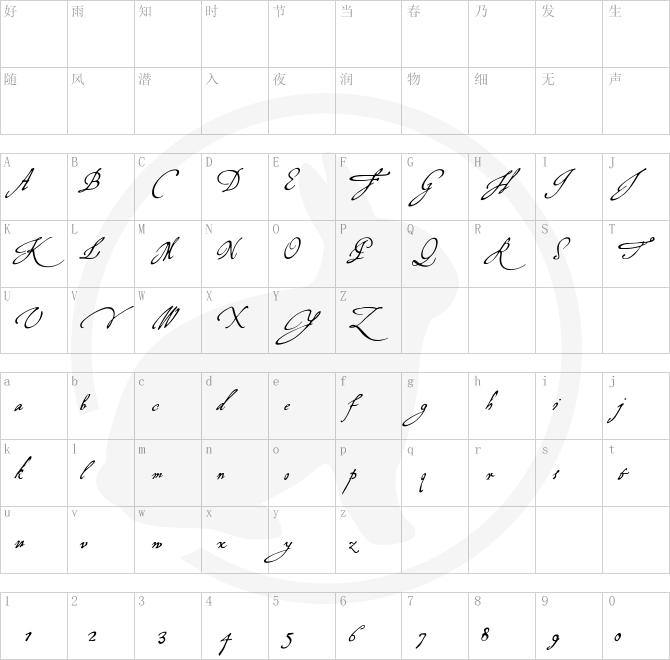
- Font Name:P22Virginian
P22Virginian.ttf is a very beautiful artistic font, P22Virginian.ttf is widely used in the design and printing of various books and pictures,P22Virginian.ttf has a strong visual impact,P22Virginian.ttf is a commonly used font in newspapers, magazines and books, and is used in posters, e-commerce Poster design, store design, logo design, font design and other fields.P22Virginian.